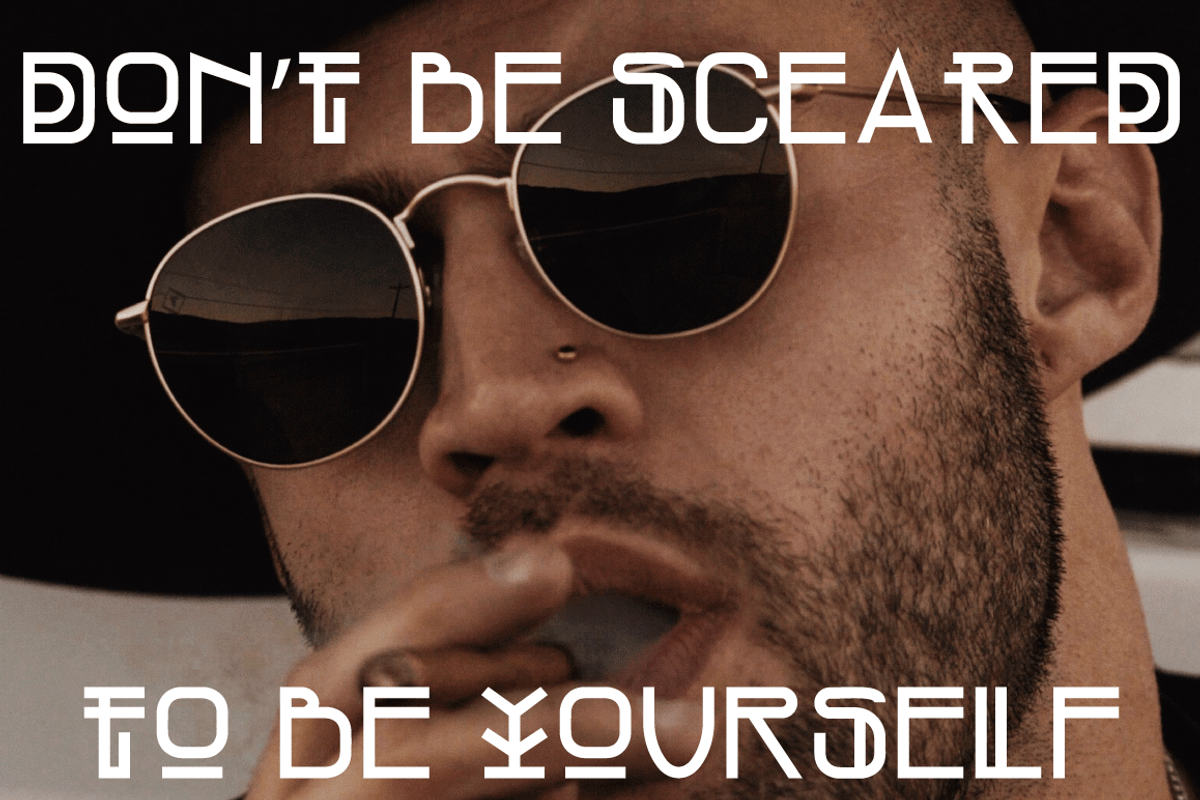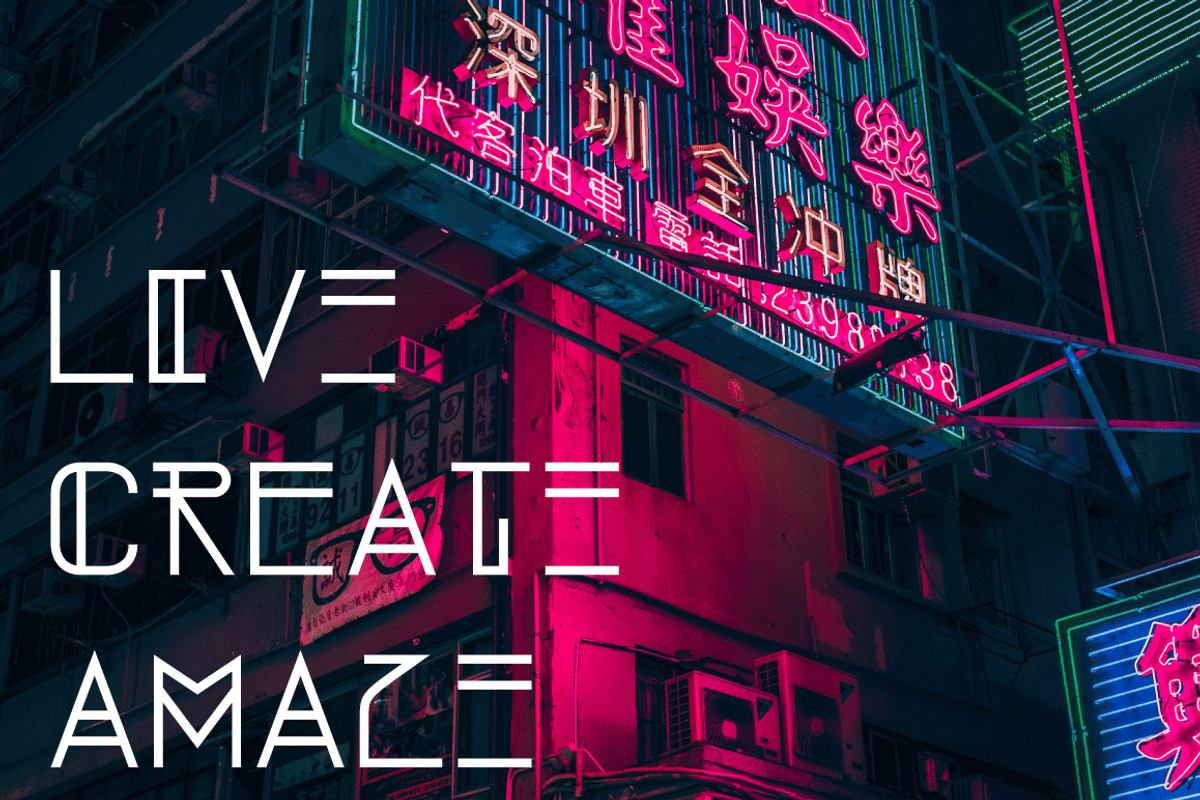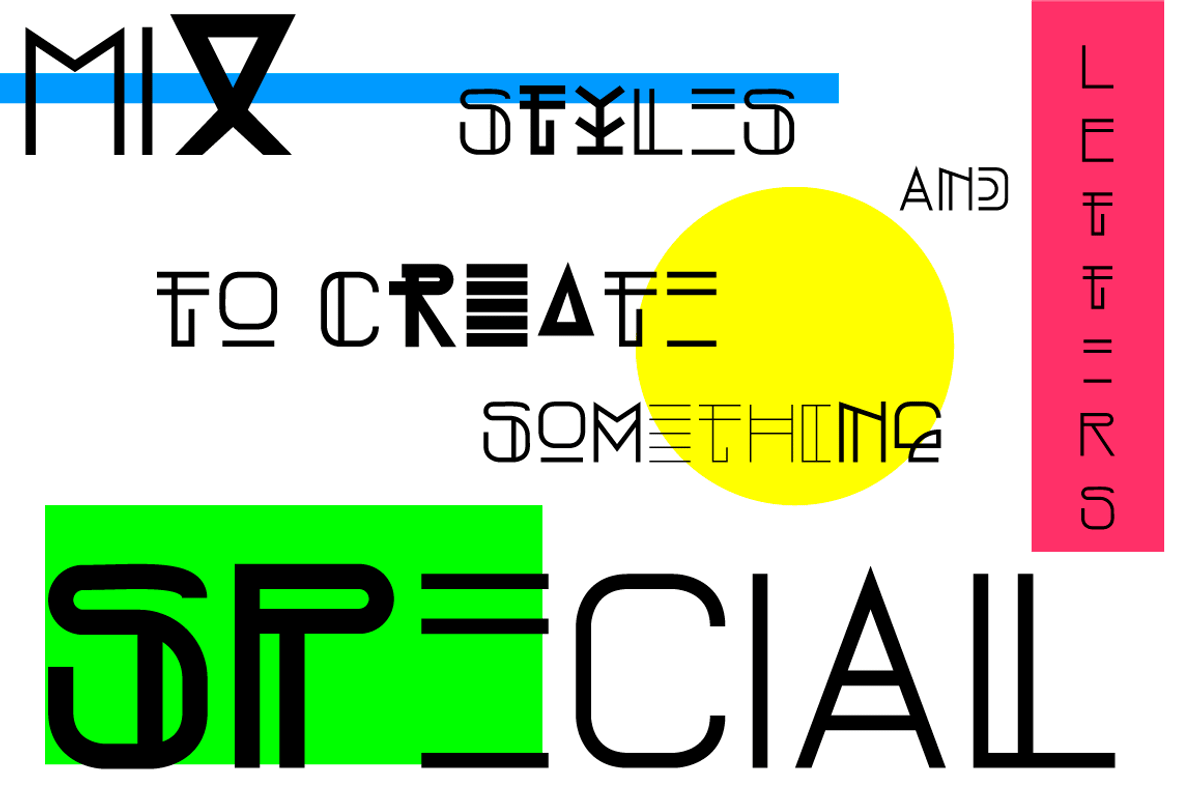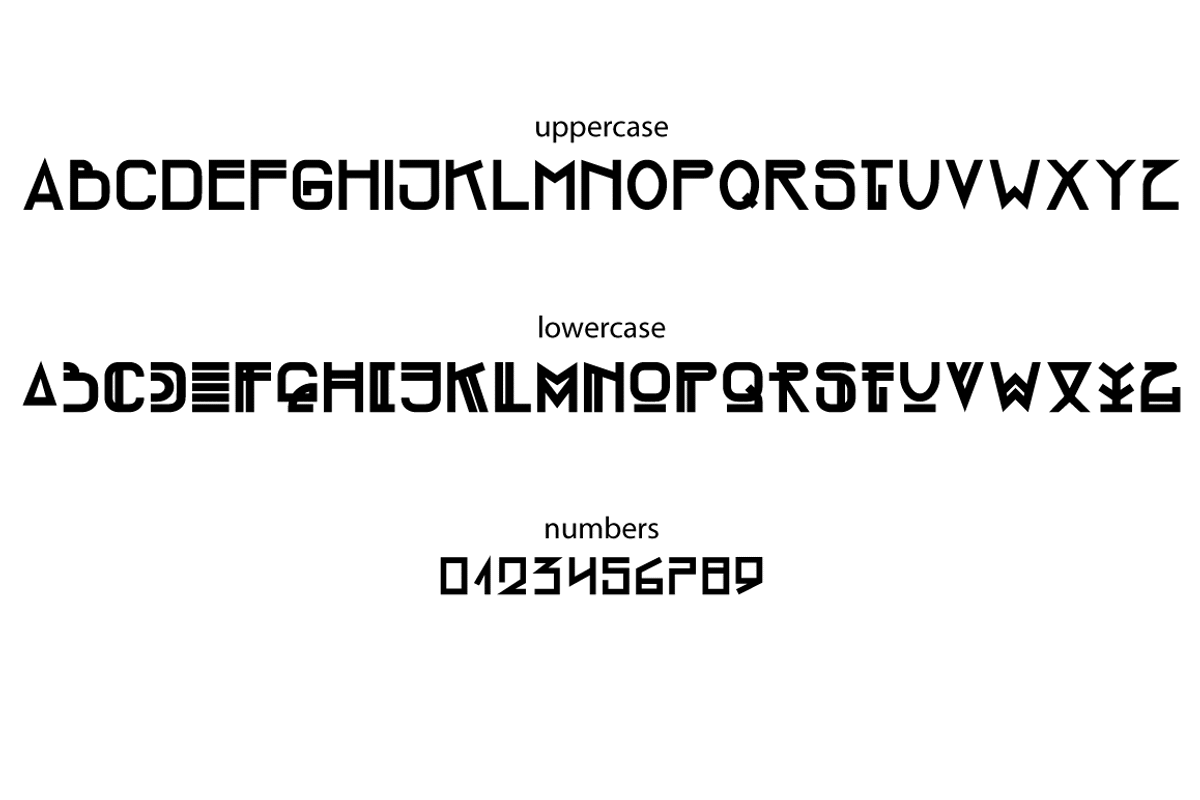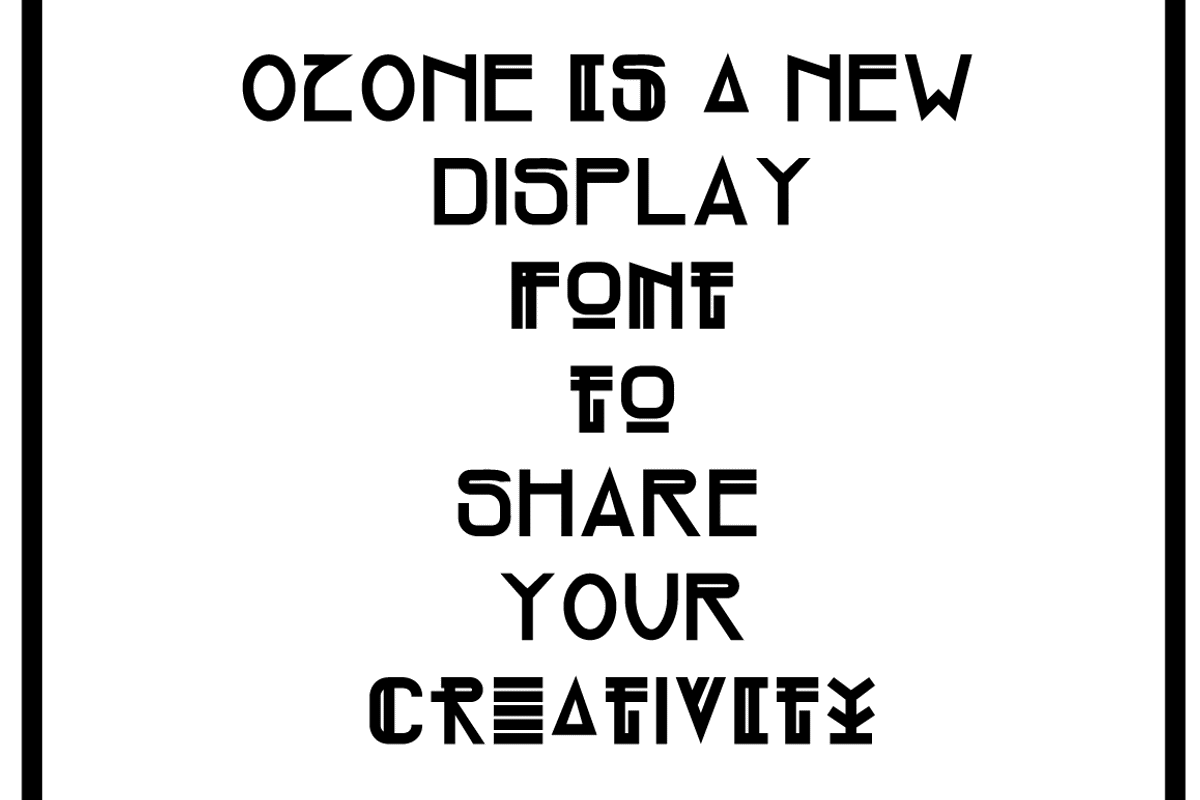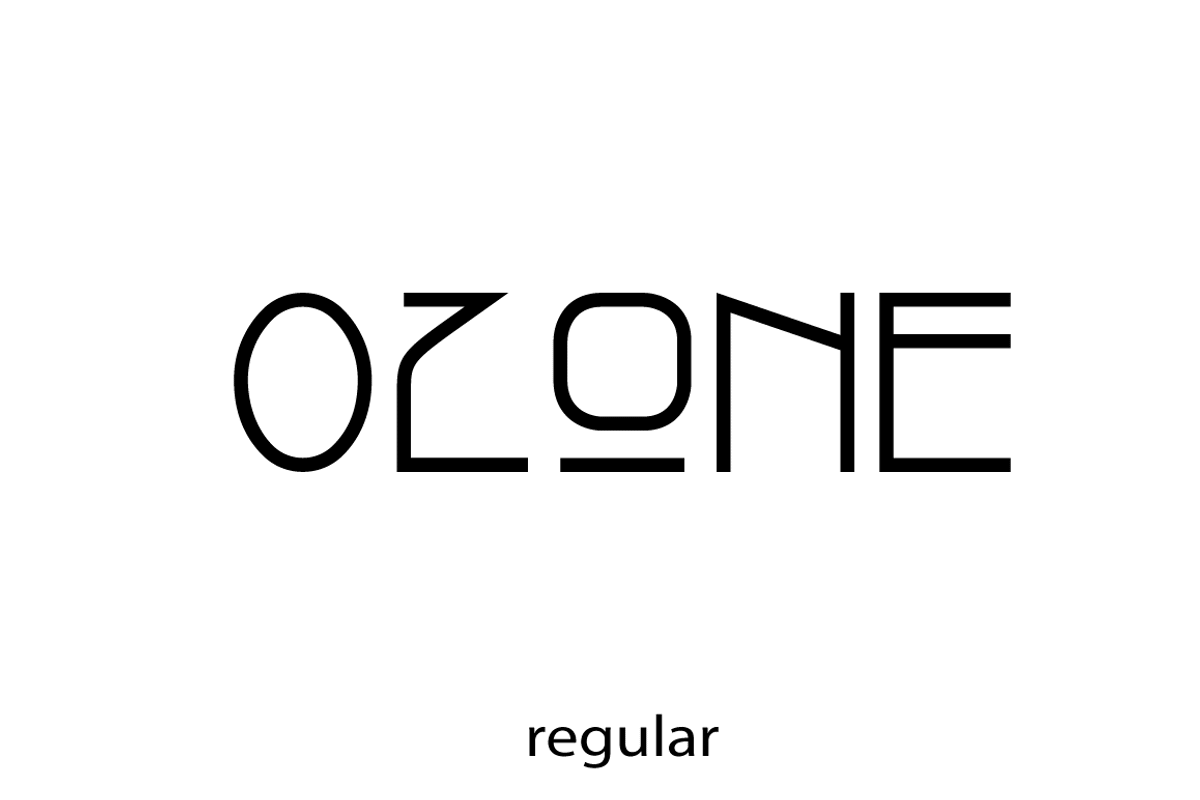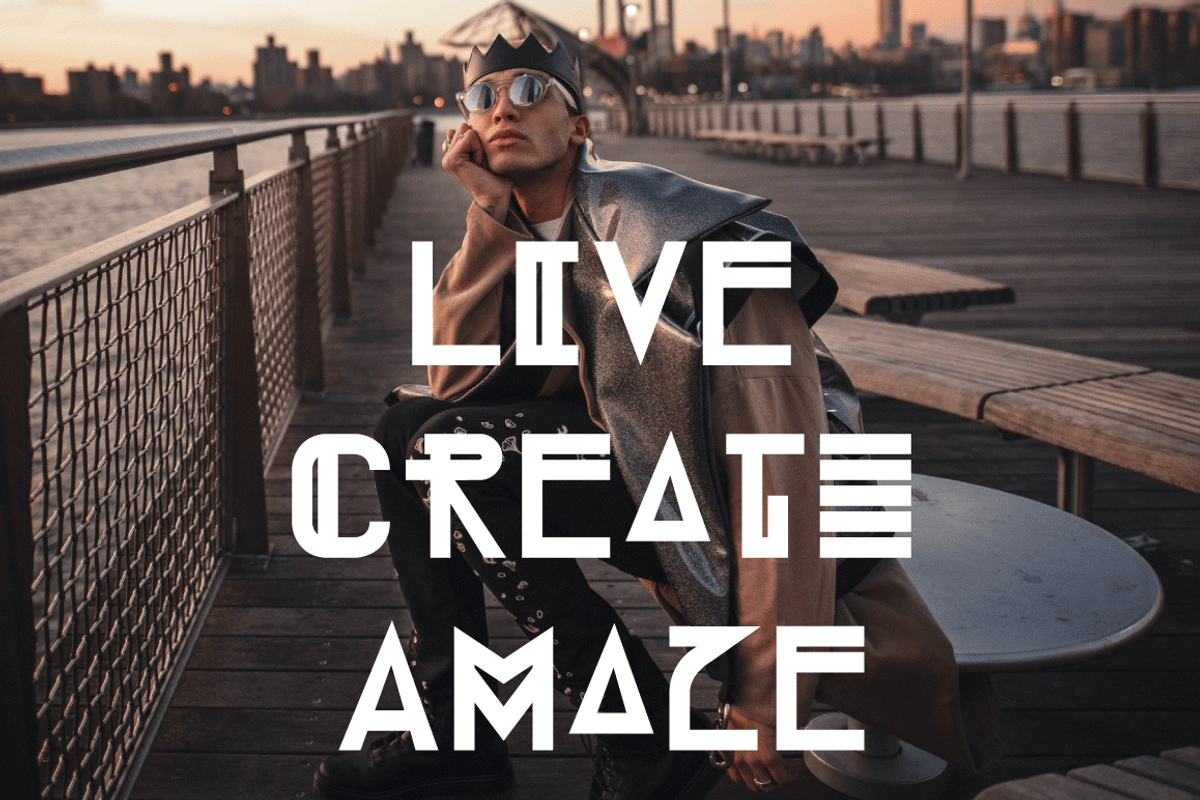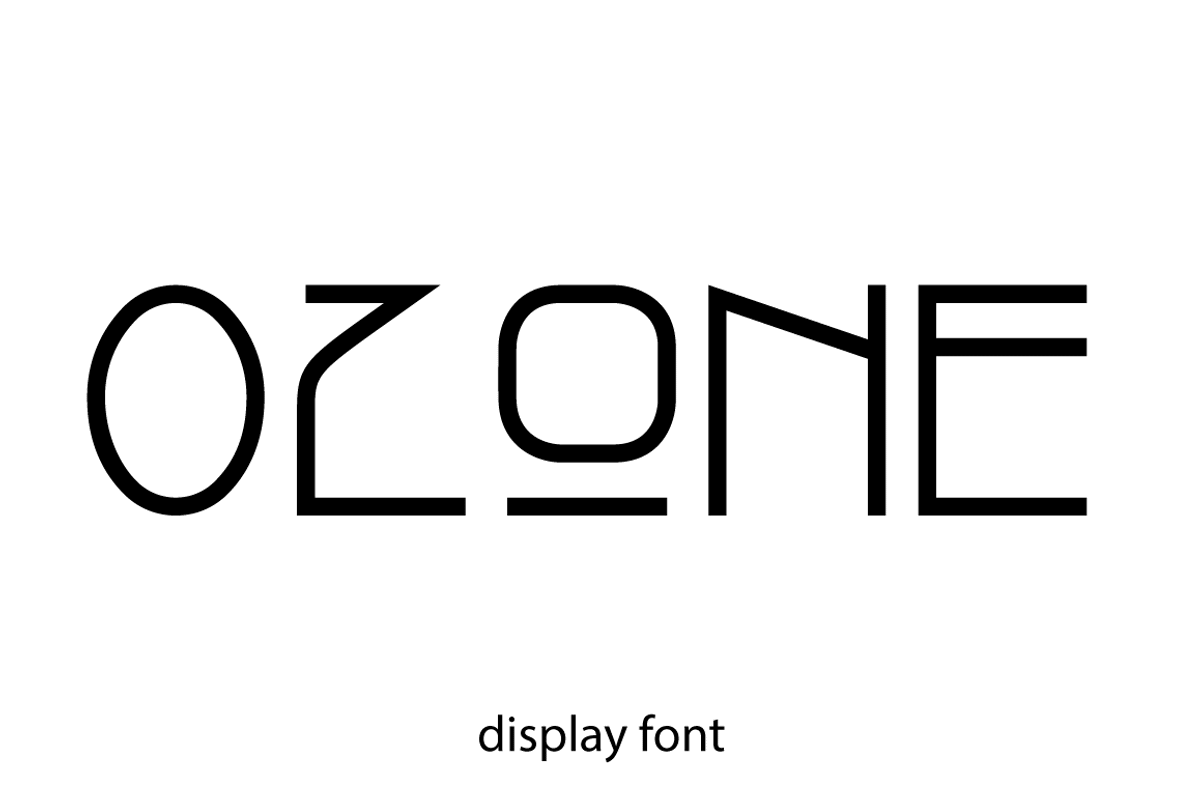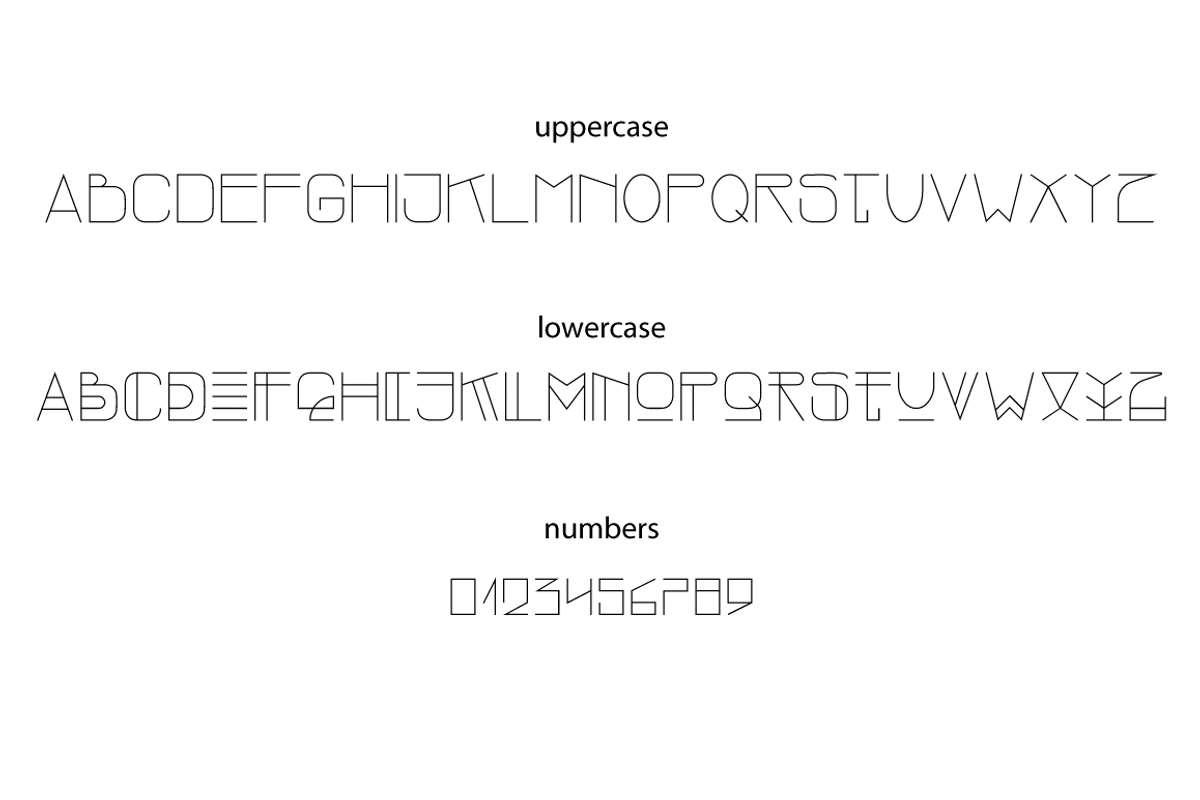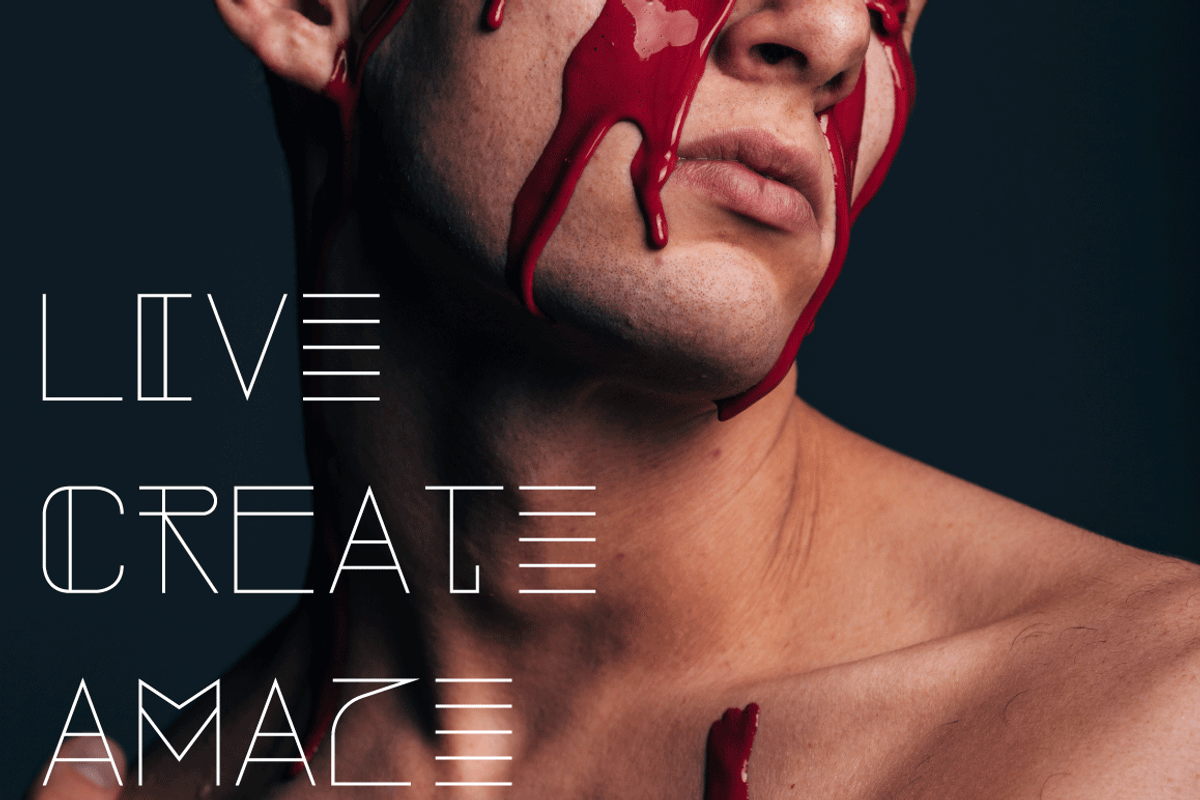
OZONE family - Display Font
Add more creative vibes to your designs!
Ozone is a family of funky display fonts where uppercase is less funky and lowercase is more.